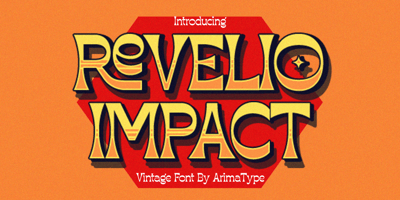
Revelio
Revelio font
Revelio Font Family was designed by Amri Mauludin and published by ArimaType. Revelio contains 1 styles and family package options. Revelio is a cool, bold, retro-styled display font. This font is PUA encoded which means you can access all of the beautiful glyphs and swashes with ease! Add it confidently to your favorite creations and let yourself be amazed by the outcome generated.